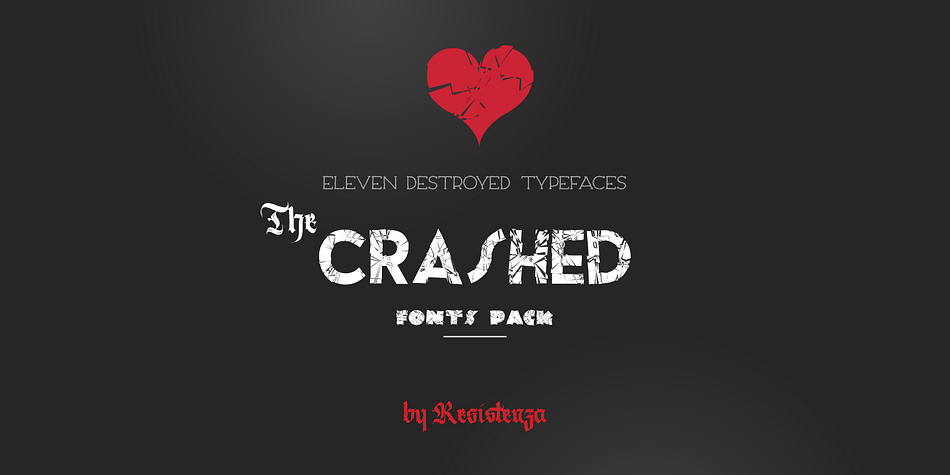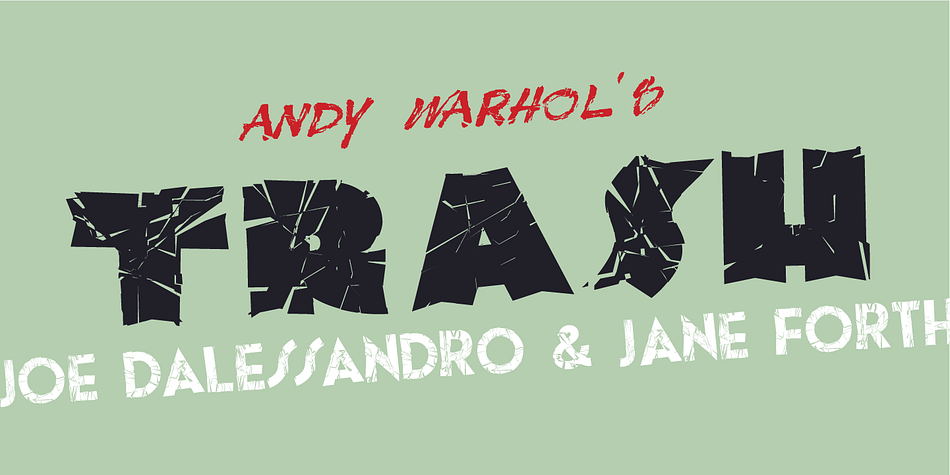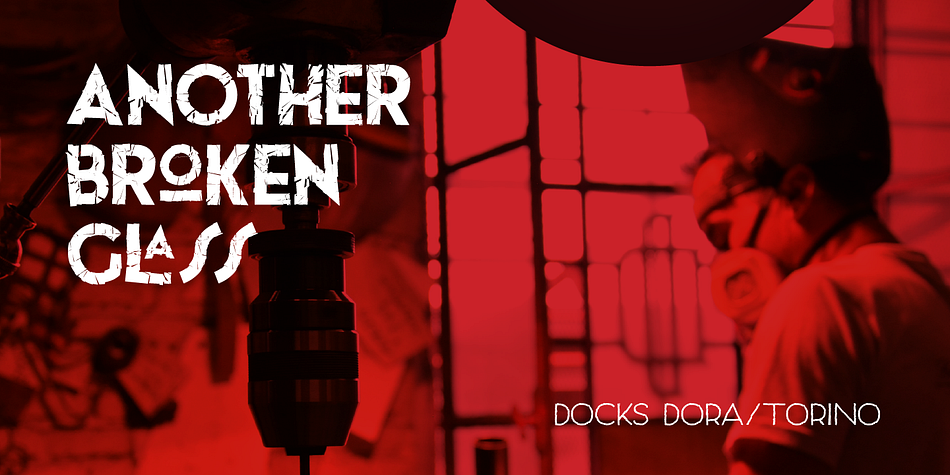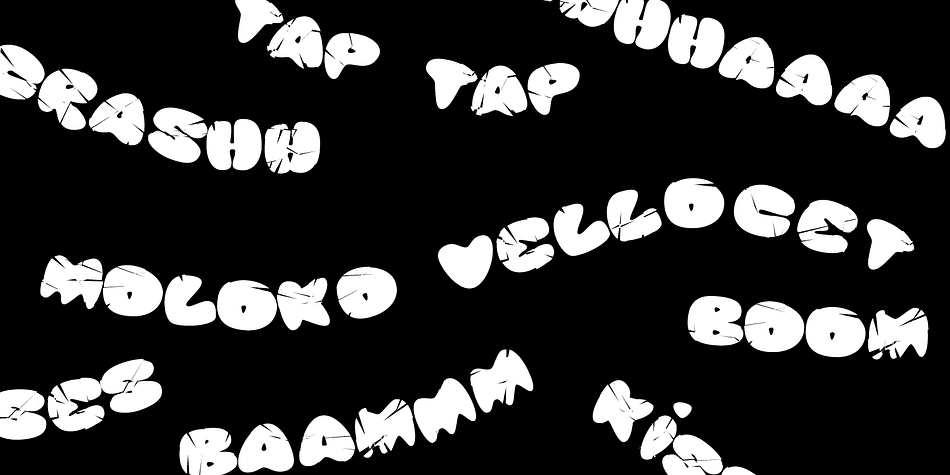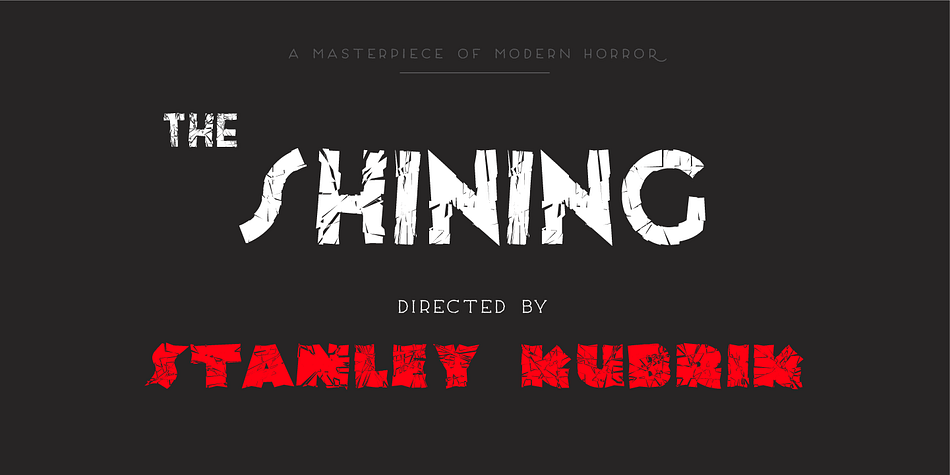
Crashed Fonts Pack is a multiple classification font family. This typeface has eleven styles and was published by Resistenza.es.
We destroyed our fonts and create a new collection with our best-sellers types.